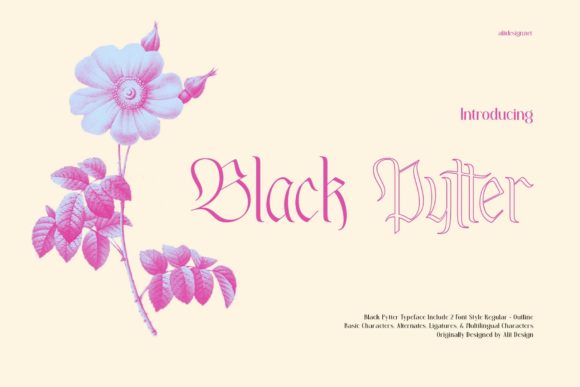
Harness the allure of the past with Black Pytter, a resplendent blackletter font that transports you to a bygone era. With its intricate flourishes and undeniable charm, this font will infuse your designs with a timeless elegance that captivates the senses.
Indulge in the artistry of its meticulously crafted details. Every stroke, every curve has been lovingly rendered, creating a visual tapestry that evokes the splendor of medieval manuscripts. Black Pytter is more than just a font; it's a gateway to a world of enchantment and mystery.
Empower your logos, branding, and packaging with an air of distinction. Black Pytter's bold presence commands attention, leaving an unforgettable mark on all who encounter it. Its versatility extends from vintage-inspired creations to contemporary designs, adding a touch of timeless sophistication to every project.
Unleash the full potential of Black Pytter with its PUA encoding, which grants you effortless access to a treasure trove of glyphs and swashes. Experiment with an array of stylistic alternatives to create designs that exude individuality and charm.
Embrace Black Pytter, and let your imagination soar to new heights. With this captivating font as your ally, you'll craft designs that resonate with the soul and leave an enduring legacy.